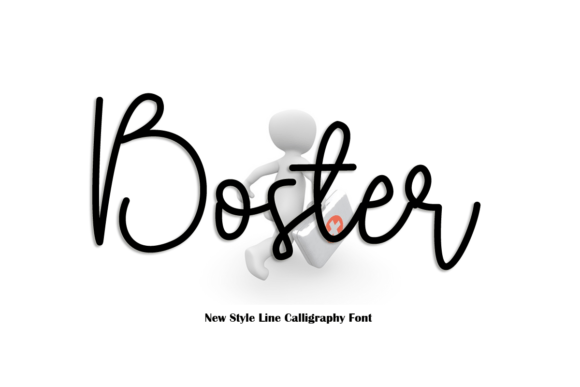
Boster Font: The Sweet and Friendly Handwritten Font for Your Design Needs
Boster font is a delightful and charming handwritten font that has gained popularity among designers and crafty individuals alike. This sweet and friendly font is perfect for adding a lovely touch to various designs, including wedding invitations, cards, and more. In this article, we’ll dive into the world of Boster font, exploring its features, uses, and benefits, as well as provide tips on how to make the most of this beautiful font.
What is Boster Font?
Boster font is a type of handwritten font that exudes warmth and friendliness. Its unique and charming lettering style makes it an excellent choice for designs that require a personal touch. This font is carefully crafted to provide a sense of approachability and sweetness, making it perfect for a wide range of applications.
Features of Boster Font
Boster font comes with several features that make it a standout among other handwritten fonts. Some of its notable features include:
- Unique lettering style: Boster font boasts a distinctive lettering style that is both sweet and friendly.
- Handwritten feel: This font has a natural, handwritten feel that adds a personal touch to any design.
- Cute and fun: Boster font is perfect for designs that require a playful and fun vibe.
- Easy to read: Despite its handwritten nature, Boster font is easy to read and understand, making it suitable for body text and headings.
Uses of Boster Font
Boster font is an incredibly versatile font that can be used in various design applications. Some of the most popular uses of Boster font include:
- Wedding invitations: Boster font is an excellent choice for wedding invitations, as it adds a touch of romance and whimsy to the design.
- Cards and stationery: This font is perfect for designing cards, gift tags, and other stationery items that require a personal touch.
- Social media graphics: Boster font can be used to create engaging social media graphics, such as quotes, posters, and flyers.
- Branding and packaging: This font can be used in branding and packaging designs to add a friendly and approachable feel to the product.
Benefits of Using Boster Font
Using Boster font in your designs comes with several benefits, including:
- Uniqueness: Boster font helps your designs stand out from the crowd with its unique and charming lettering style.
- Emotional connection: This font helps create an emotional connection with your audience, as it conveys a sense of warmth and friendliness.
- Versatility: Boster font can be used in various design applications, making it a valuable addition to your font library.
- Ease of use: This font is easy to use and pairs well with other fonts, making it a great choice for designers of all levels.
Tips for Using Boster Font
To make the most of Boster font, here are some tips to keep in mind:
- Pair with complementary fonts: Pair Boster font with complementary fonts to create visual interest and hierarchy in your designs.
- Use for headings and titles: Use Boster font for headings and titles to add a touch of personality to your designs.
- Experiment with colors: Experiment with different colors to find the perfect combination that matches your brand’s tone and personality.
- Keep it simple: Don’t overdo it – keep your designs simple and clean to let Boster font shine.
Boster font is a sweet and friendly handwritten font that can add a lovely touch to your designs. With its unique lettering style, ease of use, and versatility, this font is perfect for a wide range of applications, from wedding invitations to social media graphics. By following the tips outlined in this article, you can make the most of Boster font and create stunning designs that capture the hearts of your audience.
- What is Boster font? Boster font is a sweet and friendly handwritten font designed for a wide range of applications.